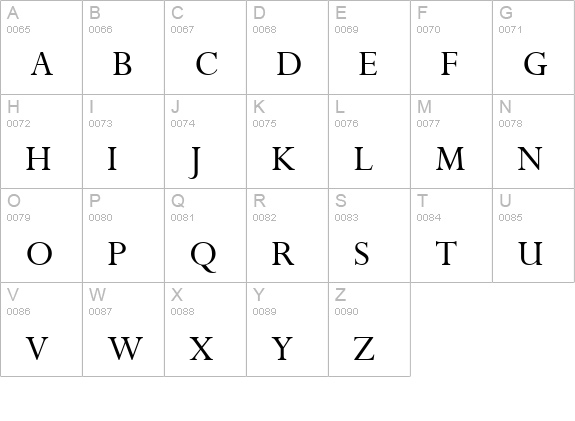
Compleat SSi Font Details
Compleat SSi font is a visually stunning typeface that exudes elegance and sophistication. With its intricate details and stylish design, this font is perfect for adding a touch of class to any project. The flowing curves and sharp edges create a harmonious balance that will make your text stand out. What's even better is that Compleat SSi font is available for free download at FontsMarket.com. This means you can easily access this beautiful font and use it in your designs without any cost. Whether you're working on a branding project, invitation design, or any other creative endeavor, Compleat SSi font will surely elevate your work to the next level. Don't miss out on this amazing opportunity to enhance your typography with this exquisite typeface.